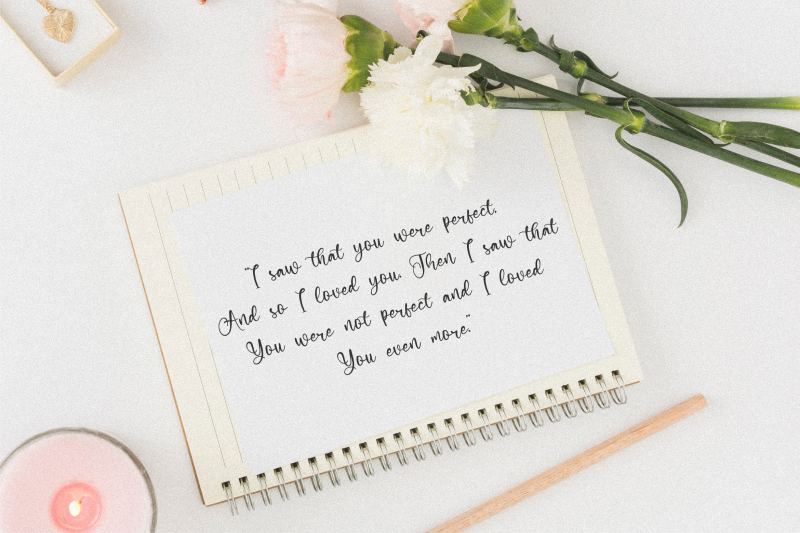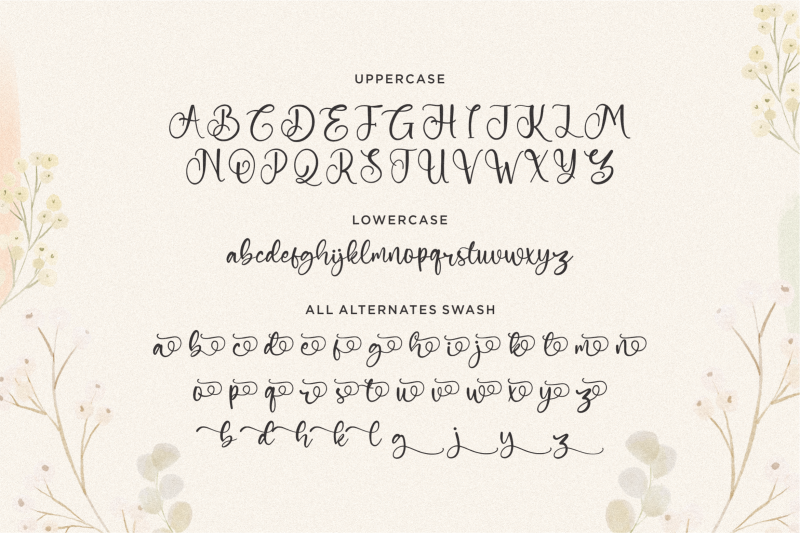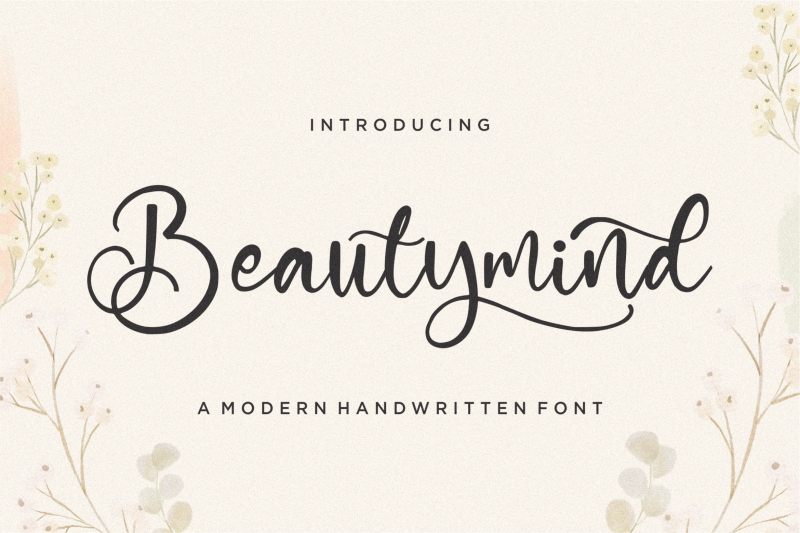
Beautymind is a Modern Handwritten Font Beautymind is perfect for product packaging, branding project, megazine, social media, wedding, or just used to express words above the background. This font includes OTF, TTF & WOFF, Beautymind also multilingual support.